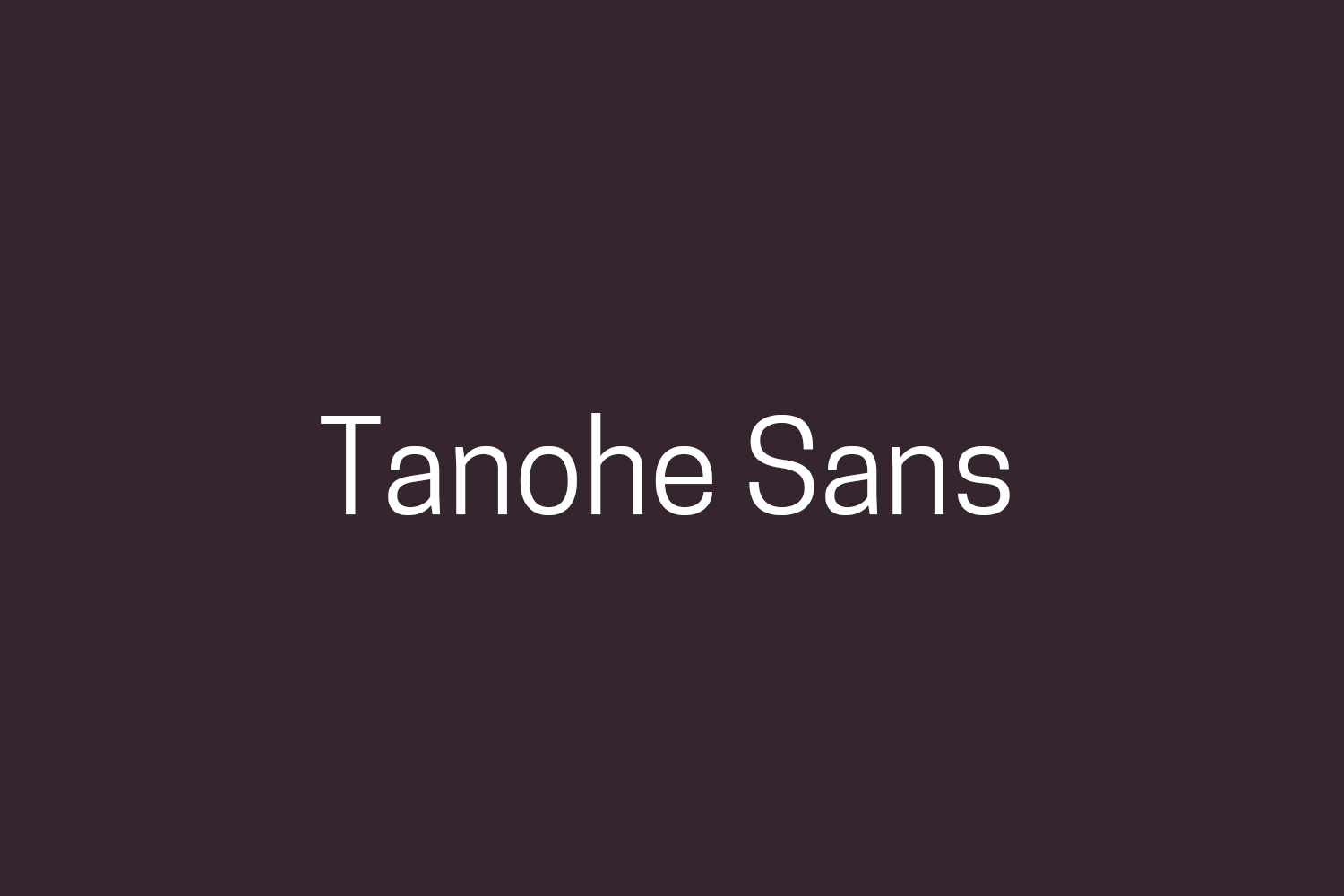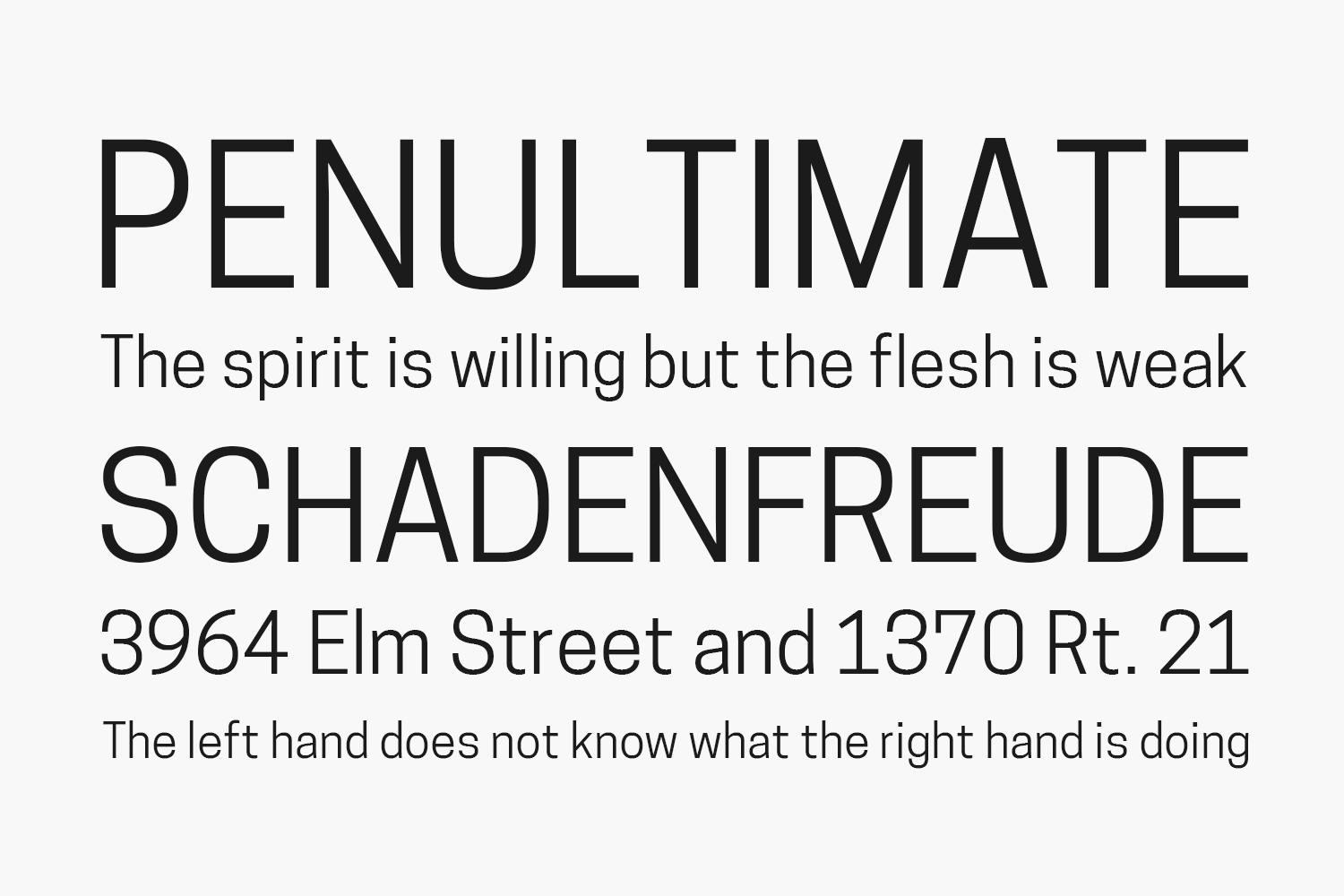
Tanohe Sans Free Font Family is developed on top of Cooper Hewitt fonts. Changes are: re-worked style numbers (so they will work well in Windows OSes), changed to TrueType, a shorter ‘J’, and true form for ‘a’ in italics.
Designed by Cooper Hewitt Smithsonian Design Museum